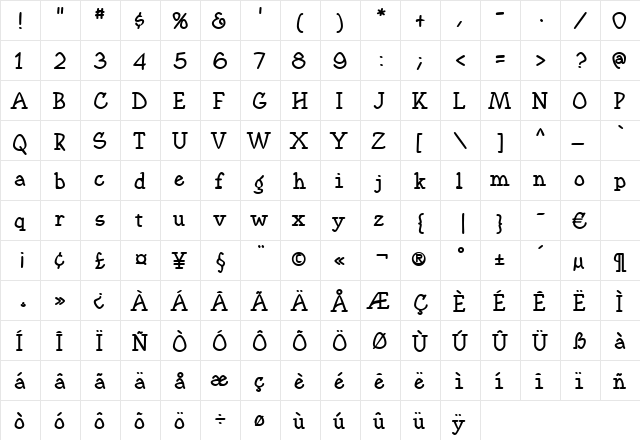
SundsvallBold Regular
Design Context for SundsvallBold Typeface
SundsvallBold takes a measured approach to typography — its balanced proportions and neutral character make it a reliable workhorse for both digital and print work. The heavy weight commands attention and anchors typographic hierarchies.